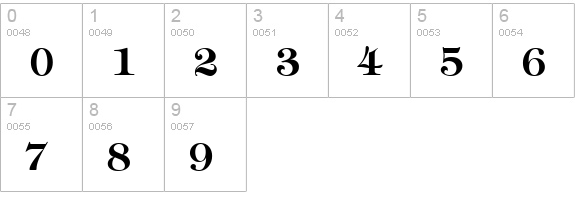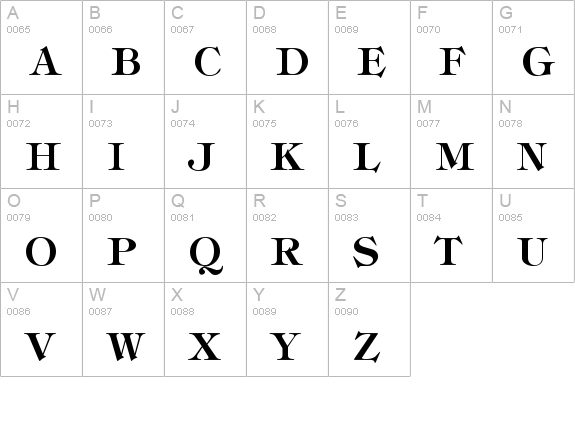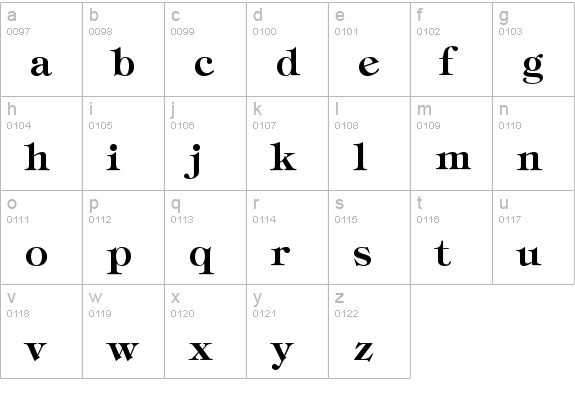
Timbrel Bold Font Details
Timbrel Bold is a strong, high-contrast variant in the Timbrel typeface family \xE2\x80\x94 well suited to headlines, attention-grabbing titles, and strong calls-to-action.
Introducing Timbrel Bold, a striking and versatile font that captivates with its bold and contemporary design. This stunning typeface is sure to make a lasting impression, whether used for headlines, logos, or any creative project that demands attention. Timbrel Bold boasts a unique combination of sharp lines and smooth curves, creating a harmonious balance that exudes confidence and strength. Its bold weight commands the viewer's gaze, while the meticulously crafted letterforms ensure readability across various sizes and mediums. What sets Timbrel Bold apart is not only its exceptional design, but also its accessibility. This remarkable font is freely available to download at FontsMarket.com, allowing designers, artists, and enthusiasts alike to harness its power and elevate their projects to new heights. Whether you're designing a poster, branding materials, or a website, Timbrel Bold effortlessly adds a touch of sophistication and modernity. Its versatility is further highlighted by its ability to seamlessly complement both traditional and contemporary aesthetics, making it a valuable addition to any designer's toolkit. With Timbrel Bold, your creativity knows no bounds. Embrace the freedom to create captivating designs that leave a lasting impact. Download Timbrel Bold now at FontsMarket.com and unlock the potential to make a bold statement with your typography.